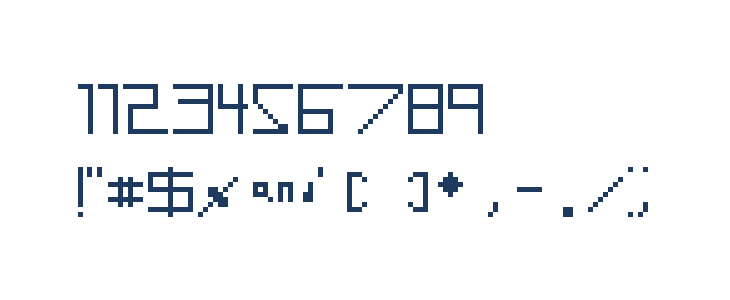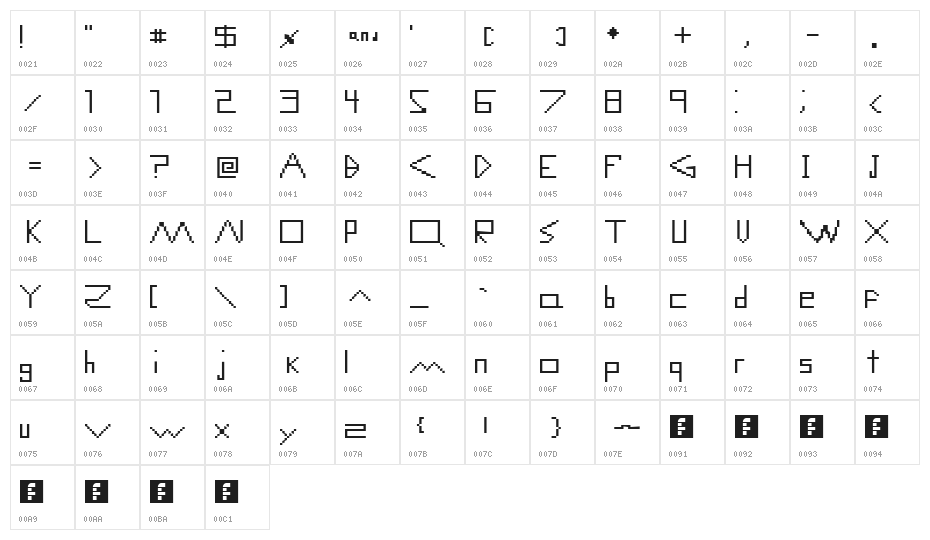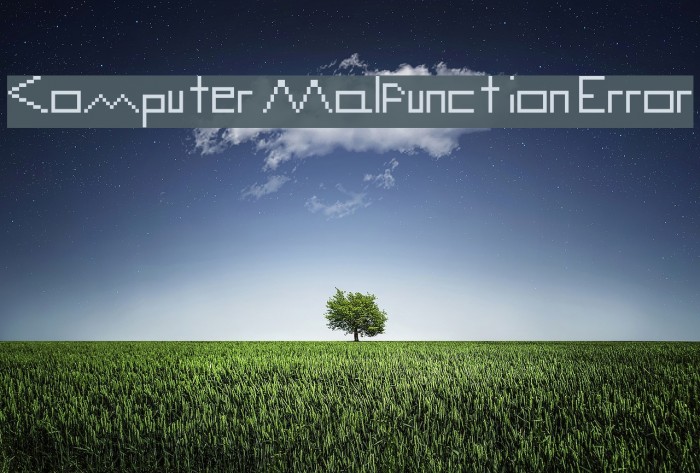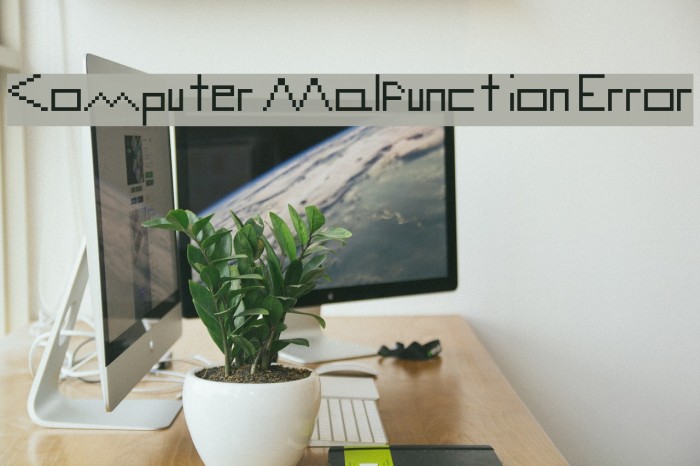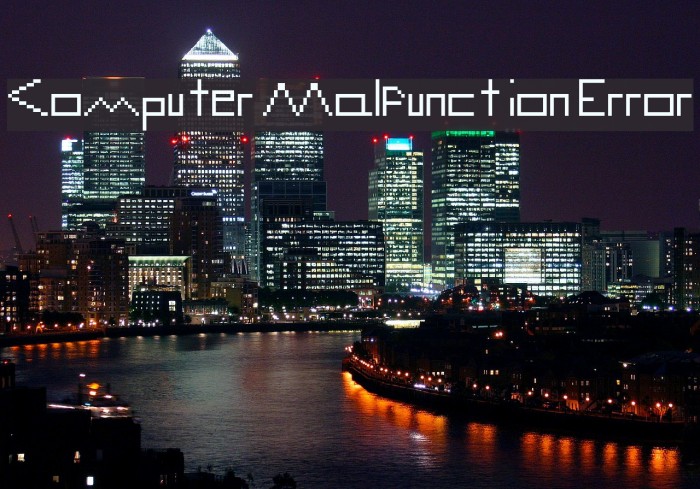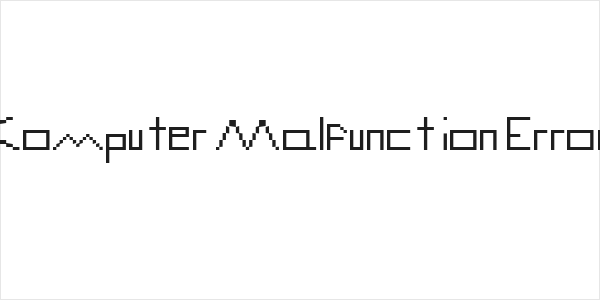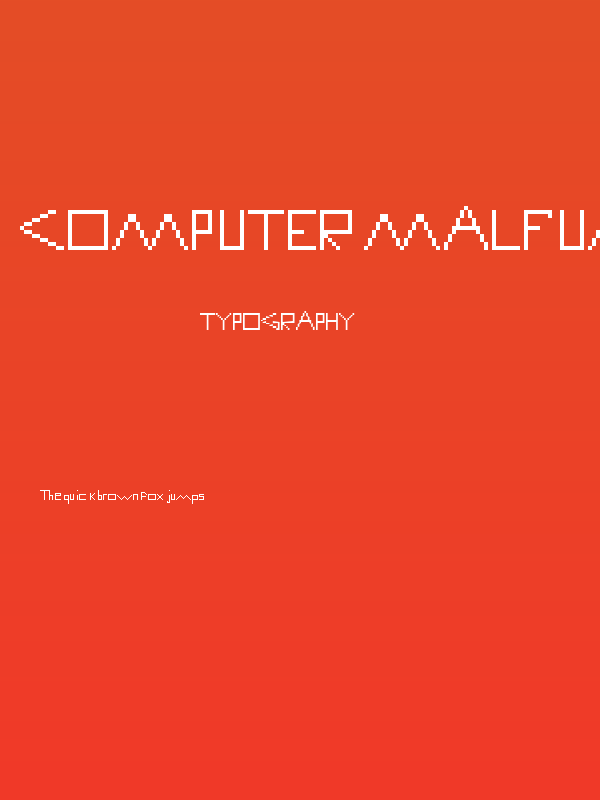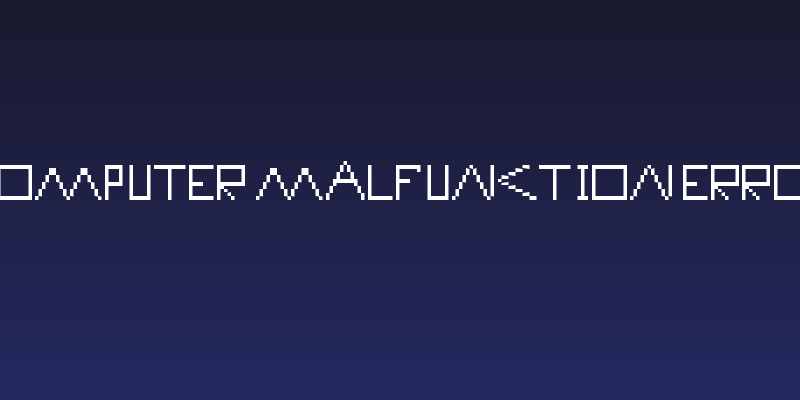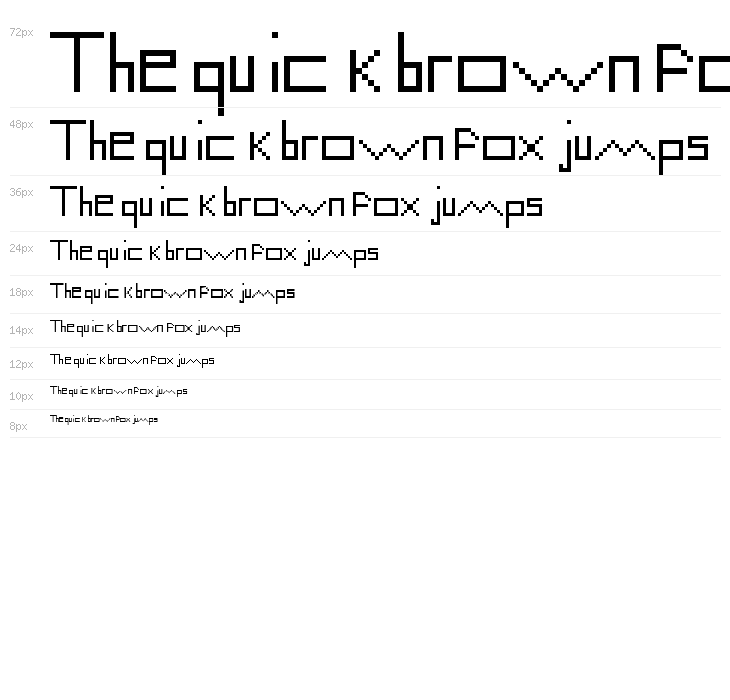
Computer Malfunction Error Font
Computer Malfunction Error Description
This font features a pixelated, retro style reminiscent of early digital displays and video games. Each character is composed of blocky, square pixels, giving it a distinctly digital and geometric appearance. The uppercase and lowercase letters maintain a consistent height, with sharp angles and straight lines dominating the design. Numbers and special characters follow the same pixelated pattern, ensuring uniformity across the typeface. The overall aesthetic is both nostalgic and modern, suitable for projects that require a digital or tech-inspired look.
| Overall Style | Retro, Digital |
| Use Case | Headlines, Logos, Digital Displays |
| Proposed Projects | Ideal for video game design, tech-themed posters, digital art projects, and retro-inspired branding. |